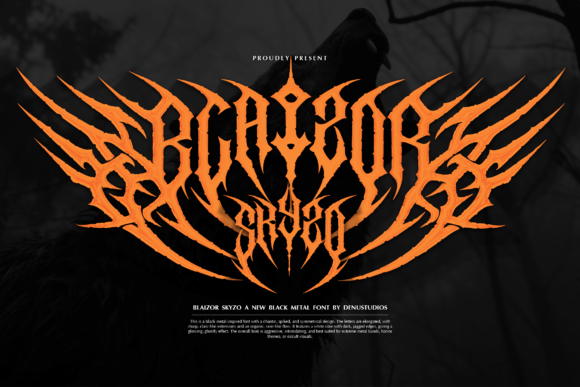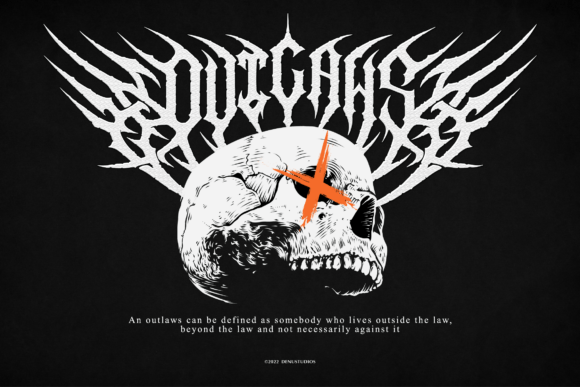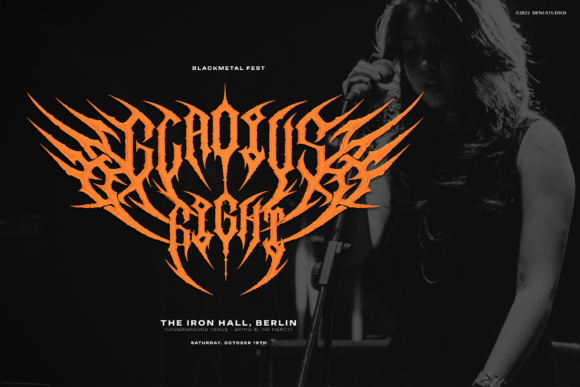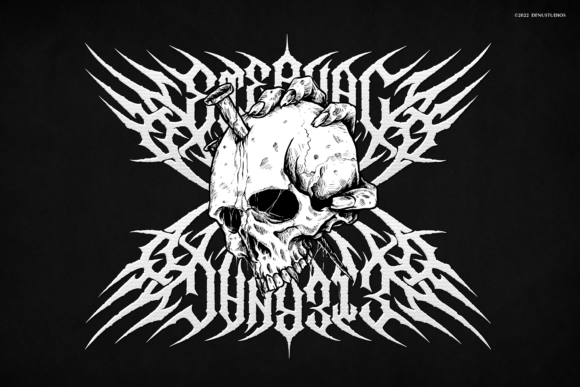
Blaizor Skyzo Font: Unleash Dark Typography with this Metal Display Font!
About the Blaizor Skyzo Font
Get ready to be inspired by Blaizor Skyzo Font, a fresh and dynamic typeface for modern creators. Blaizor Skyzo is a black metal-inspired display font forged in chaos and sharpened with pure intensity. With jagged edges, claw-like extensions, and a flame-like symmetry, this font embodies darkness and aggression. Perfect for metal band logos, horror visuals, and extreme design projects, Blaizor Skyzo delivers a haunting, powerful presence that’s impossible to ignore.
Blaizor Skyzo excels as a headline font for posters, album art, and branding projects requiring a strong, aggressive aesthetic. Its unique character makes it ideal for conveying power and rebellion, but its intricate detail limits readability in body text or UI applications. Avoid using it for large blocks of text.
This font’s personality is undeniably bold and rebellious. It works best for projects targeting audiences who appreciate dark aesthetics and heavy metal culture. Brands focused on extreme sports, gaming, or horror would find it highly effective.
To balance its aggressive energy, pair Blaizor Skyzo with a clean sans-serif like Montserrat for body text, or a more geometric sans-serif like Futura for a contrasting, modern feel. A simple serif like Garamond can add a touch of classic elegance to temper its intensity.
Blaizor Skyzo Font Usage Examples
Blaizor Skyzo Font Example